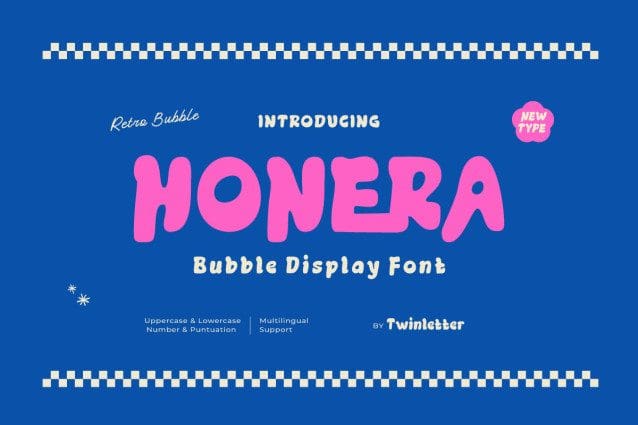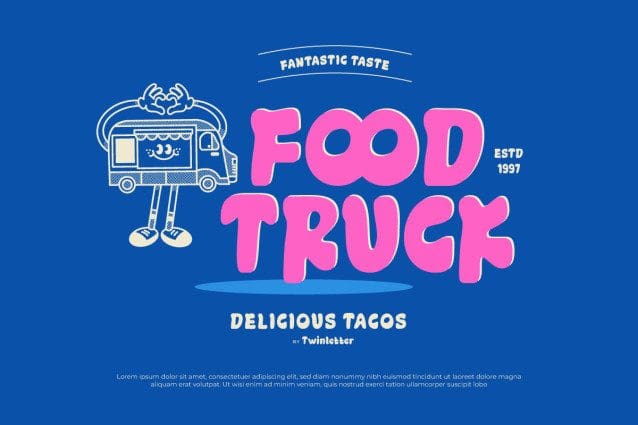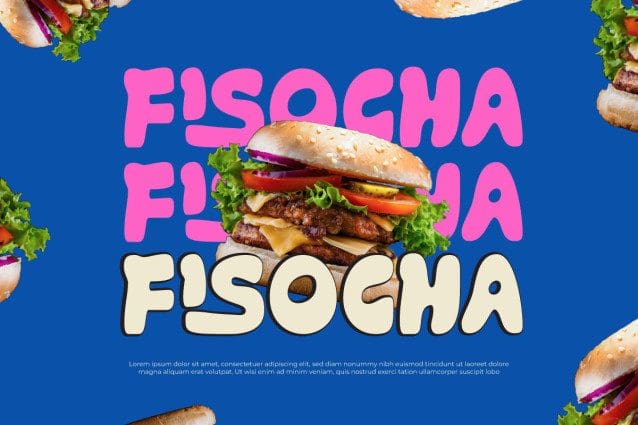
Honera Bubble Font
Honera Bubble Font, the powerhouse bubble display font that refuses to be ignored. Bold, dynamic, and unapologetically strong, Honera Bubble commands attention with its thick, robust shape and playful personality. Whether you’re branding a cutting-edge startup, designing eye-catching logos, or crafting attention-grabbing headlines, Honera delivers impact in every letter. Its rounded forms exude energy and enthusiasm, injecting a sense of fun and vitality into your designs. Embrace the boldness of Honera Bubble and unleash your creativity with confidence. Let your designs burst with character and charm, powered by the irresistible allure of Honera.